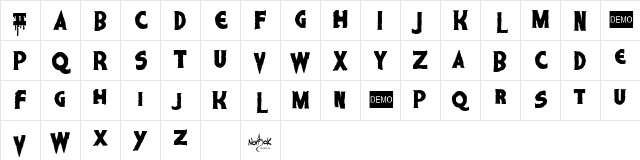
Living Dead 2 DEMO Regular Free Font
Living Dead 2 DEMO Regular
Designer: Thomas W. Otto
Design Context for Living Dead 2 DEMO
Living Dead 2 DEMO is a composed and adaptable typeface that performs quietly and consistently across a wide range of design contexts.